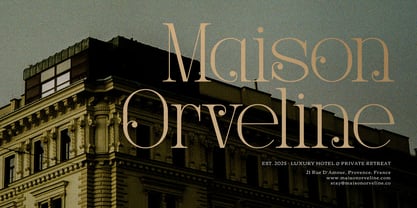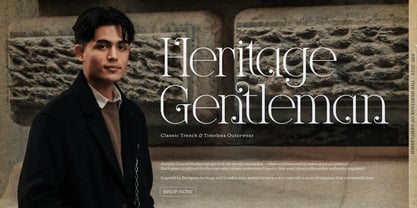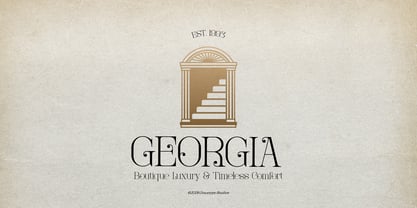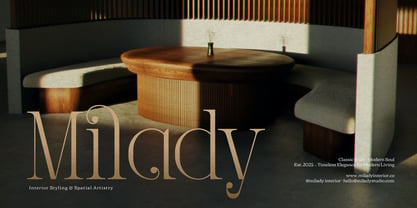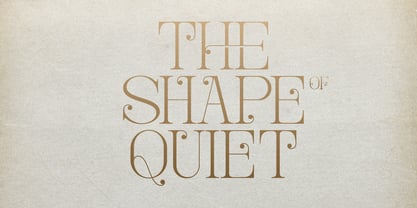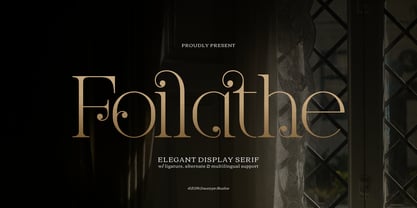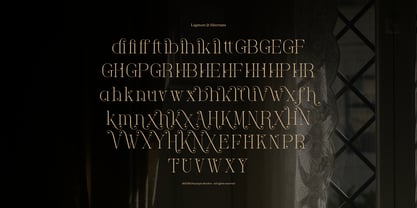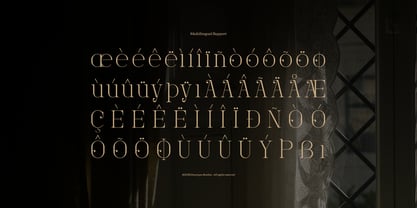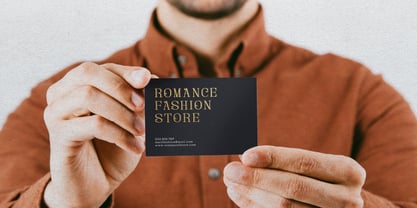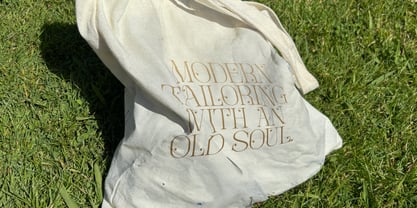
Foilathe
by Tini Fitriani
The Foilathe Font Family was designed by and published by Tini Fitriani. Foilathe contains 2 styles and family package options. More about this family
Foliathe | Elegant Display Serif, from Gracetypestudio, suitable for any projects such as: logos, branding projects, homeware designs, product packaging, mugs, quotes, posters, shopping bags, t-shirts, book covers, name card, invitation cards, greeting cards, label, photography, watermark, special events, and all your other lovely projects that need a Serif taste.